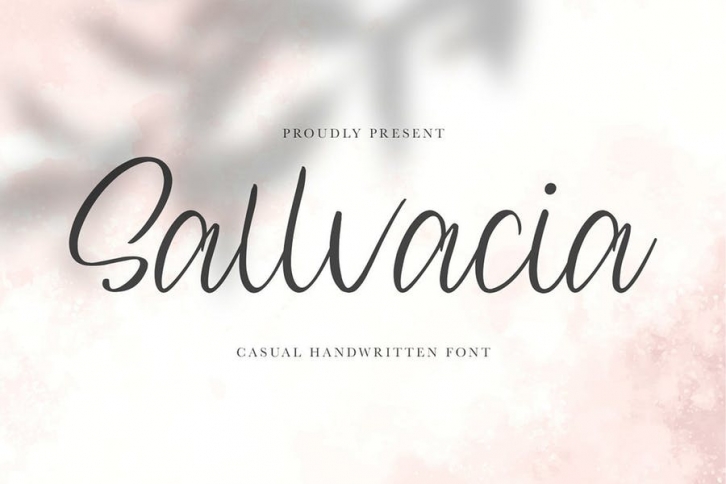
Proudly Present Sallvacia Script is the latest and most amazing Realism Signature font, designed to create beautiful typhography or lettering,
Looks beautiful when used for personal logo and letterhead.branding,magazine,name card ,wedding invitation and anything.
you can do embroidery, laser cut, gold foil,traditional printing tshirt or anything do you want print. Sallvacia is very easy to use, just write your text name,logo or anything do you want,!